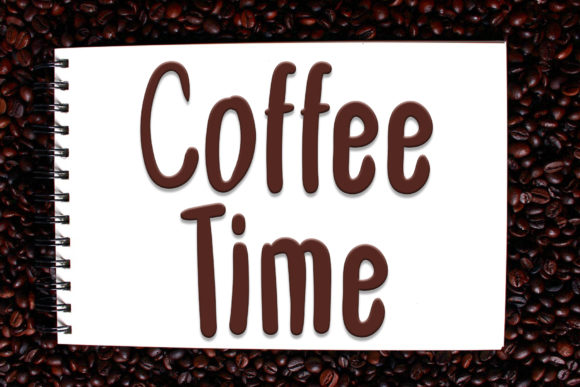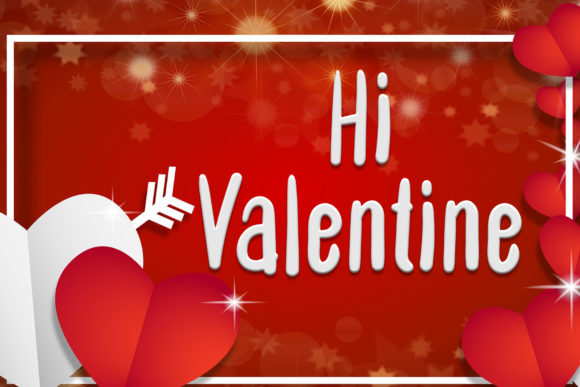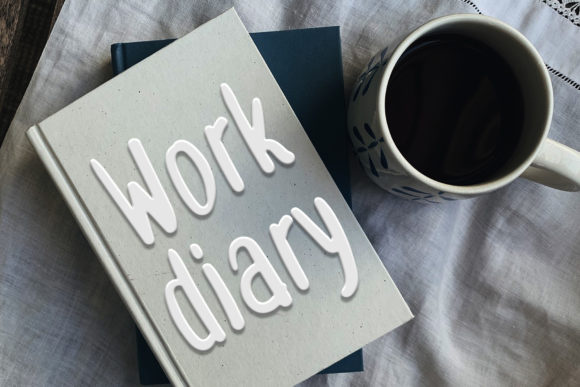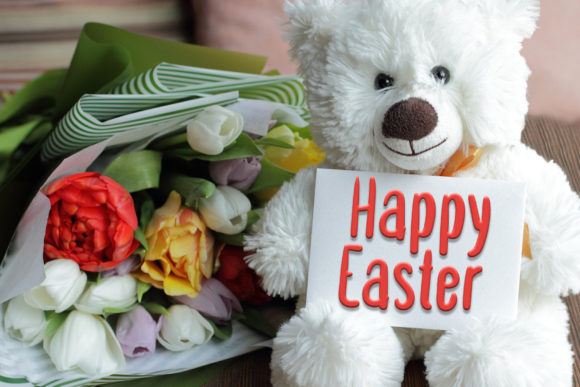
Happiness Font: Elevate Your Designs with a Friendly and Assertive Display Font
In the world of design, typography plays a crucial role in conveying emotions and setting the tone for a brand or project. When it comes to creating a lasting impression, the right font can make all the difference. Introducing Happiness Font, a vibrant and approachable display font that’s designed to add a touch of joy and friendliness to your creative endeavors. In this article, we’ll explore the features and benefits of Happiness Font, and how it can help you take your designs to the next level.
The Power of Typography: Why Fonts Matter
Typography is an essential element of design, as it can evoke emotions, convey messages, and create a visual identity for a brand. A well-chosen font can instantly communicate the tone and personality of a project, making it a crucial aspect of the design process. With so many fonts available, it can be overwhelming to choose the right one. However, with Happiness Font, you’ll discover a unique blend of assertiveness and friendliness that’s hard to find in other fonts.
What is Happiness Font?
Happiness Font is a display font that’s specifically designed to add a touch of happiness and positivity to your designs. Its assertive and friendly demeanor makes it perfect for headlines, titles, and promotional materials that require a bold and attention-grabbing approach. With its clean lines, rounded edges, and generous spacing, Happiness Font exudes a sense of approachability and warmth that’s sure to captivate your audience.
Key Features of Happiness Font
- Assertive and Friendly: Happiness Font strikes the perfect balance between confidence and approachability, making it ideal for designs that require a bold yet welcoming tone.
- Clean and Legible: With its clear lines and generous spacing, Happiness Font ensures that your message is conveyed with clarity and precision.
- Versatile: Happiness Font is suitable for a wide range of design applications, from digital media to print materials.
- Unique Personality: Happiness Font has a distinct character that sets it apart from other fonts, making it perfect for designers who want to add a touch of personality to their work.
Benefits of Using Happiness Font
By incorporating Happiness Font into your designs, you’ll enjoy a range of benefits that can elevate your work and engage your audience. Some of the advantages of using Happiness Font include:
- Enhanced Visual Appeal: Happiness Font adds a touch of warmth and friendliness to your designs, making them more visually appealing and engaging.
- Increased Readability: With its clean lines and clear lettering, Happiness Font ensures that your message is conveyed with clarity and precision.
- Improved Brand Identity: Happiness Font can help you establish a consistent brand voice and visual identity that resonates with your audience.
- Endless Creative Possibilities: Happiness Font is versatile and adaptable, making it perfect for a wide range of design applications.
How to Use Happiness Font in Your Designs
Integrating Happiness Font into your designs is easy and straightforward. Here are some tips to get you started:
- Pair it with Other Fonts: Combine Happiness Font with other fonts to create a unique and visually appealing typography scheme.
- Use it for Headlines and Titles: Happiness Font is perfect for headlines and titles that require a bold and attention-grabbing approach.
- Add it to Your Brand Identity: Incorporate Happiness Font into your brand identity to establish a consistent visual voice.
In conclusion, Happiness Font is a unique and versatile display font that’s designed to add a touch of happiness and friendliness to your designs. With its assertive and approachable demeanor, clean lines, and generous spacing, Happiness Font is perfect for designers and crafters who want to create engaging and memorable designs. Whether you’re working on a digital project or a print material, Happiness Font is sure to elevate your work and leave a lasting impression on your audience.